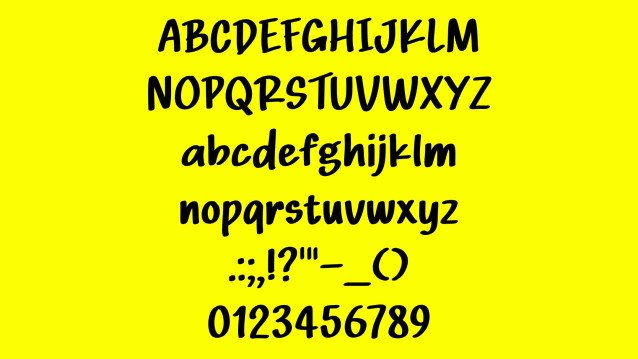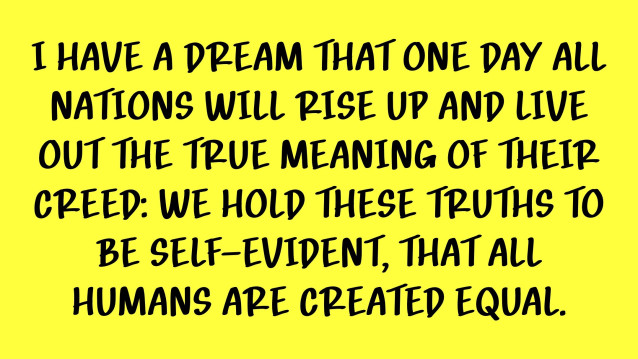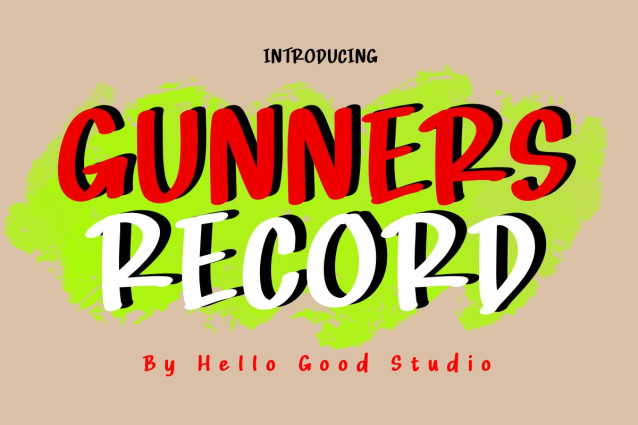
Gunners Record Font
Gunners Record Font inspired by brush lettering-style typography. This font is perfect for a design that makes it more attractive and playful. It was made with a very good level of aesthetics, making this font suitable for a book cover, poster, packaging, merchandise, logotype, and much more.